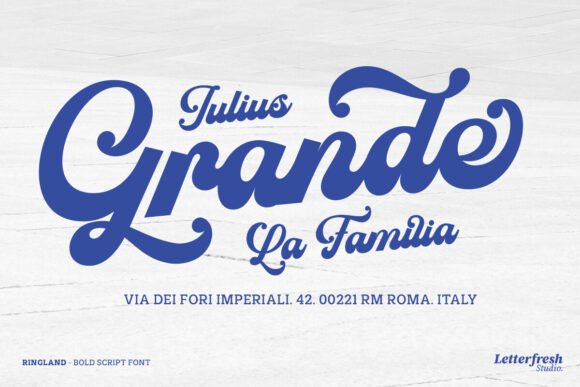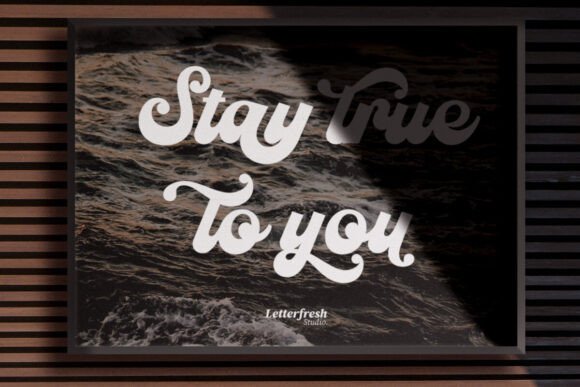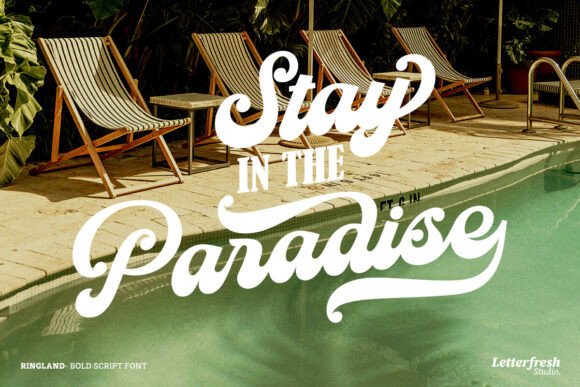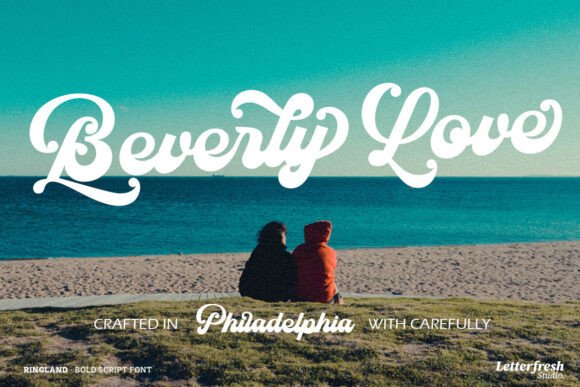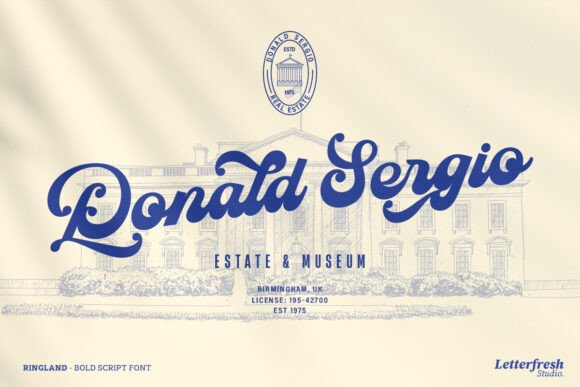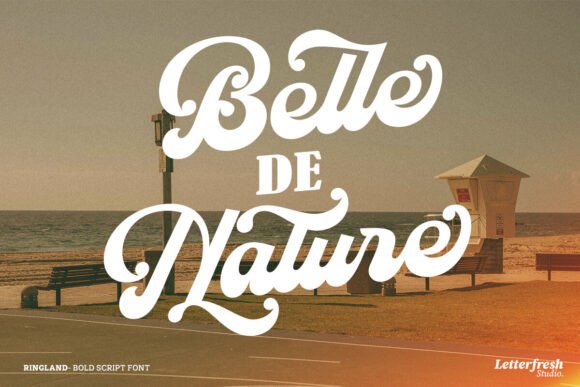
Introduction to Ringland Script Font
Have you ever found yourself staring at a blank canvas, waiting for the perfect font to bring your creative project to life? For many designers, this moment is a familiar one – a moment of inspiration and frustration all at once. But what if I told you there’s a font that could change all that? Enter the Ringland Script Font, a sophisticated and timeless script font that’s sure to elevate your designs and leave a lasting impression.
As a valuable design resource, the Ringland Script Font offers a level of flexibility and creative freedom that’s hard to match. With its unique stylistic alternates and ligatures integrated into its OpenType features, you can create a wide range of designs – from elegant invitations to product labels – with ease. And the best part? It’s available for free download, making it a high-quality design asset that won’t break the bank.
Key Features of Ringland Script Font
- High-quality, elegant script font perfect for creative projects requiring a touch of sophistication.
- Features a beautiful, handwritten design with unique characteristics and flourishes, ideal for invitations, logos, and branding materials.
- Perfect for use in creative projects, such as wedding invitations, certificates, and other formal documents, where a touch of elegance is required.
Honest Review: Ringland Script Font
I’ve had the pleasure of working with the Ringland Script Font on several creative projects, and I must say it’s been a fantastic experience. This font is perfect for designers looking for a high-quality, elegant script font that can elevate their designs to the next level.
- ✨ Beautifully crafted letters with a unique flair that sets it apart from other script fonts.
- ✨ Perfect for designing invitations, logos, and other creative projects that require a touch of sophistication.
- ⚠️ The font may not be suitable for large body text, as it can be quite ornate and may be difficult to read at smaller sizes.
- ⚠️ Some users may find the font to be a bit too decorative, which can be a drawback for those who prefer a more straightforward design aesthetic.
Overall, I’m thoroughly impressed with the Ringland Script Font. Its unique charm and high-quality design make it an excellent addition to any designer’s toolkit. While it may have some limitations, I believe it’s well worth the download – especially considering its free price tag!
The Ringland Script Font is a high-quality, elegant font that can be used in various creative projects. It’s available for free download and can be easily integrated into your design work.
Common Use Cases for Ringland Script Font
The Ringland Script Font is ideal for:
- Event branding and signage.
- Personalized gifts and cards.
Is the Ringland Script Font suitable for use in creative projects?
Yes, the Ringland Script Font is perfect for use in creative projects, including invitations, posters, and social media graphics. Its elegant and sophisticated design makes it an ideal choice for a wide range of design applications, from wedding invitations to branding materials.